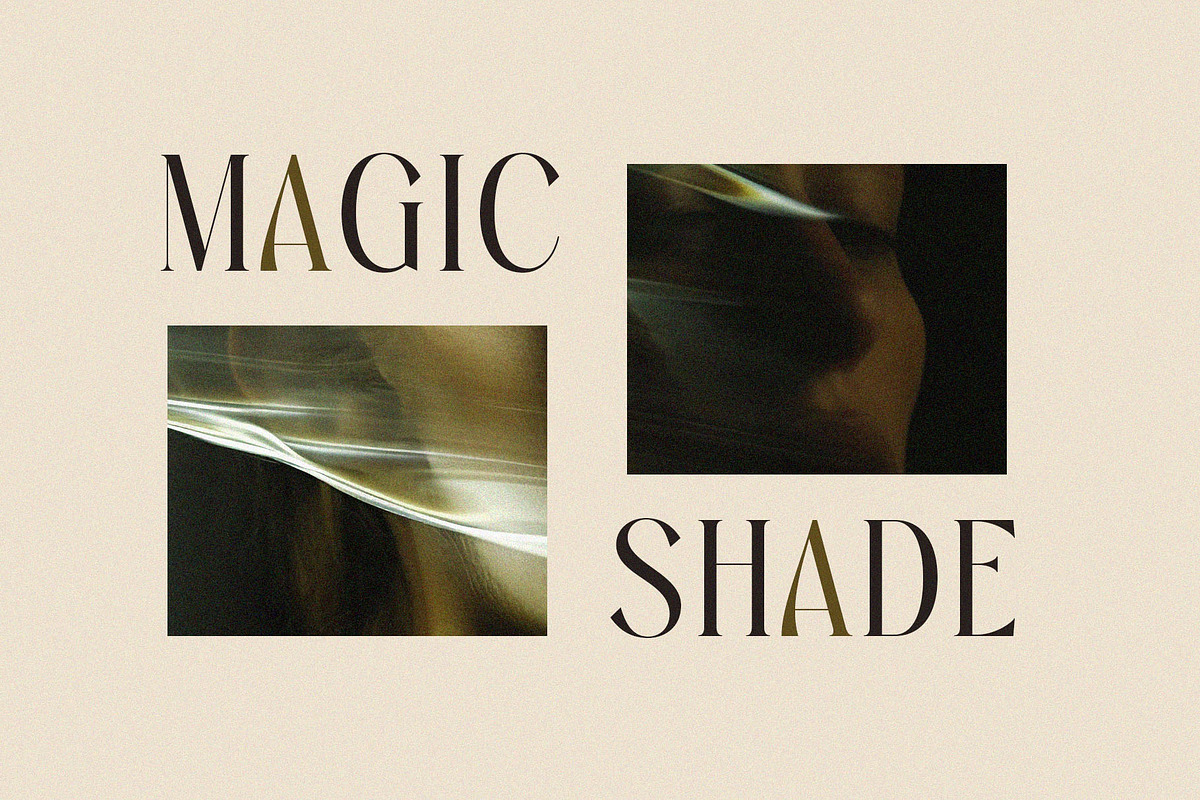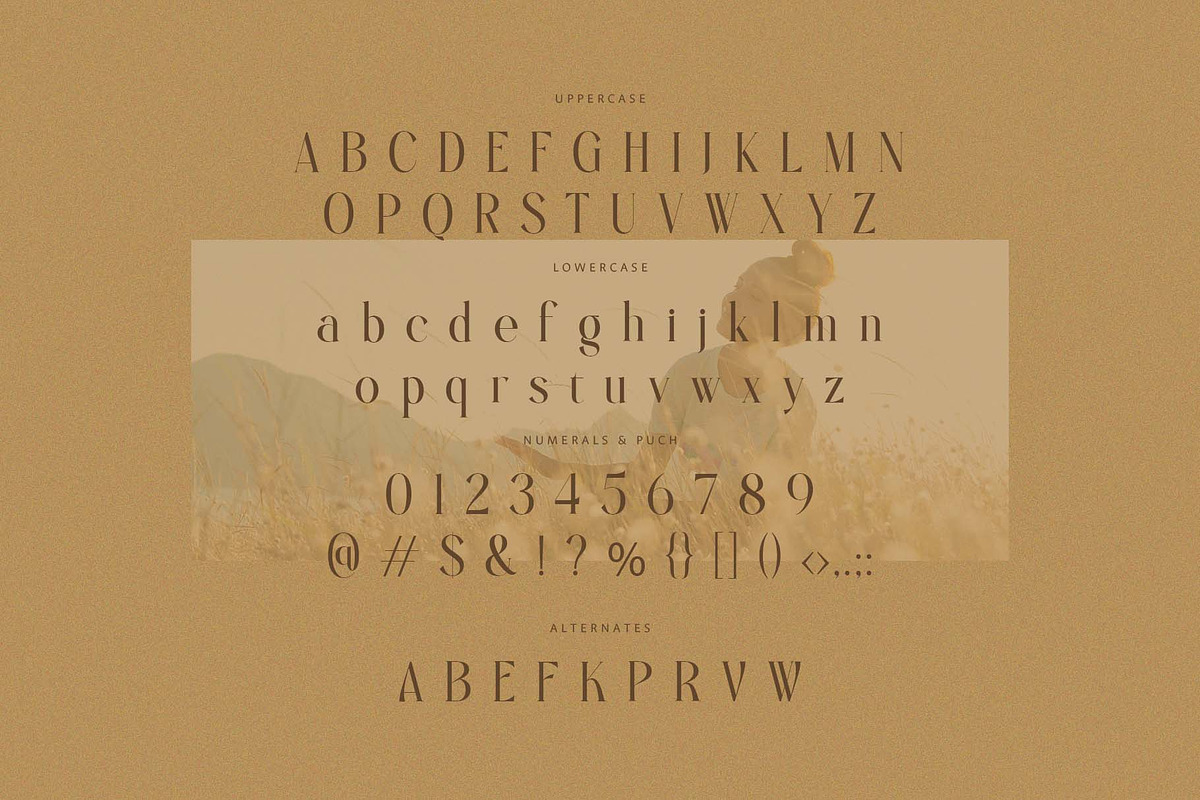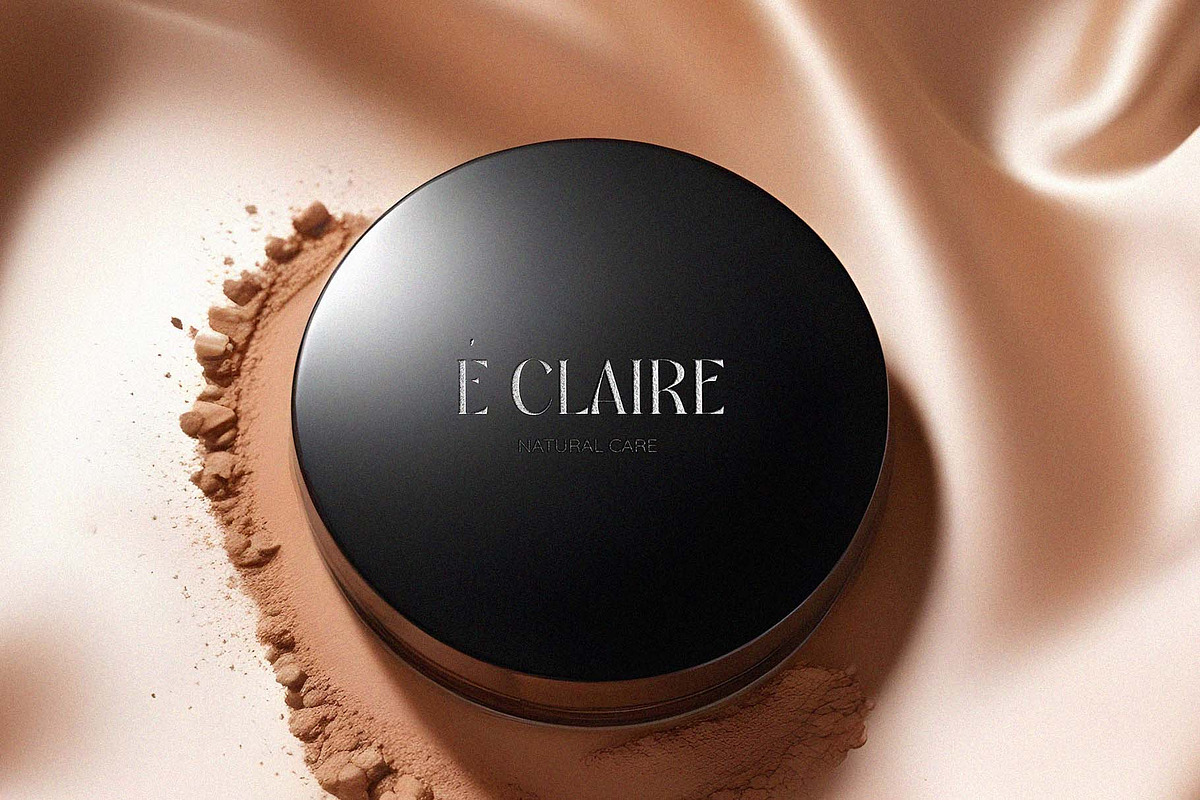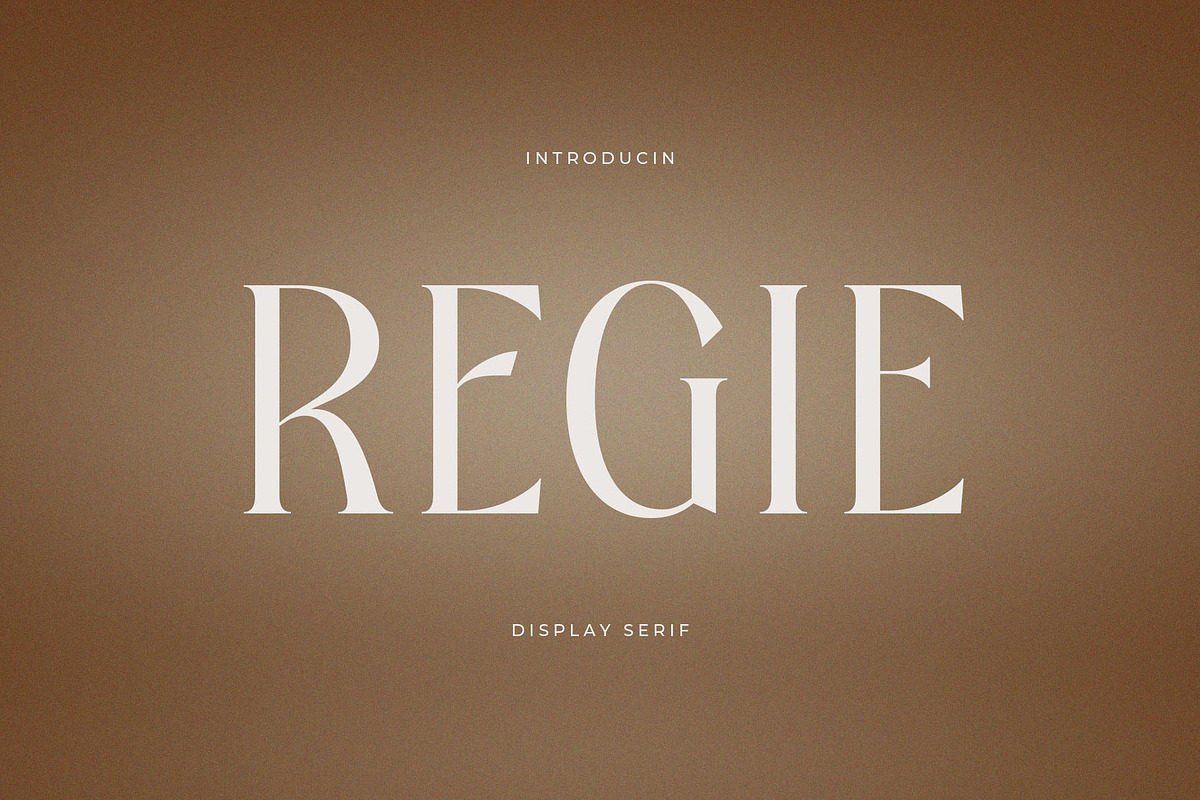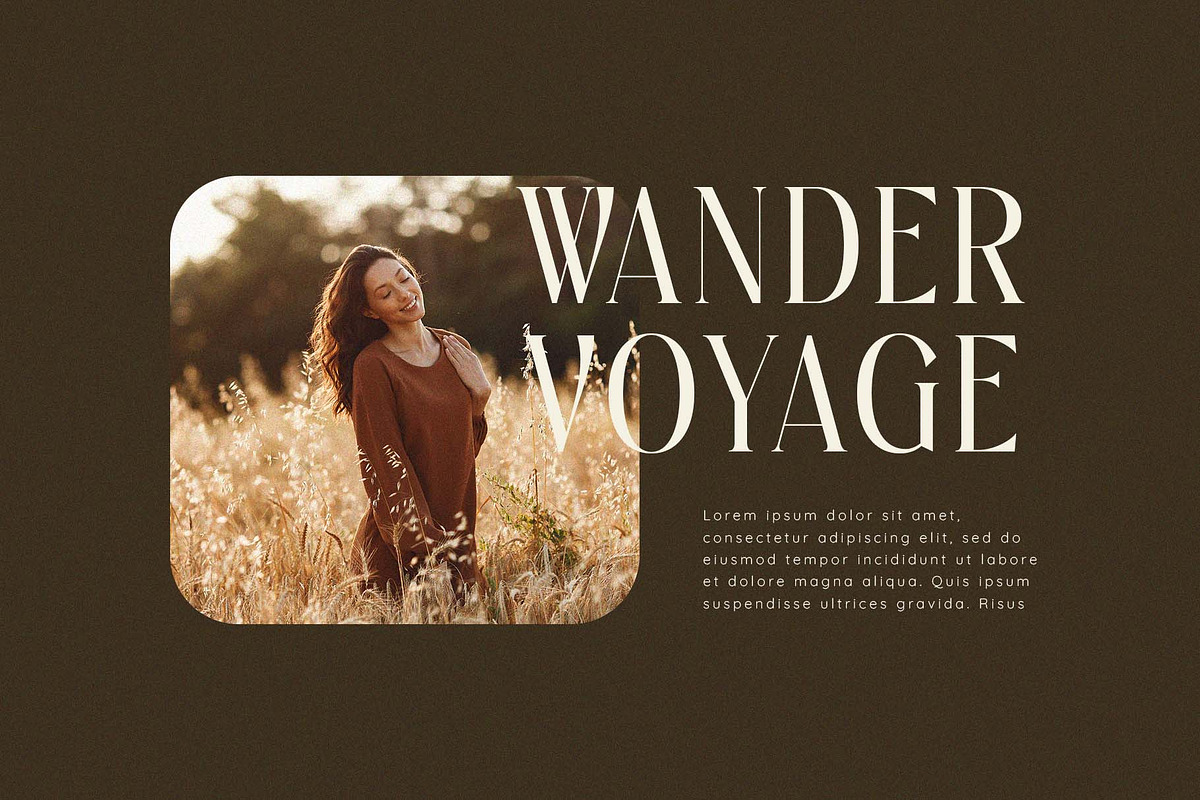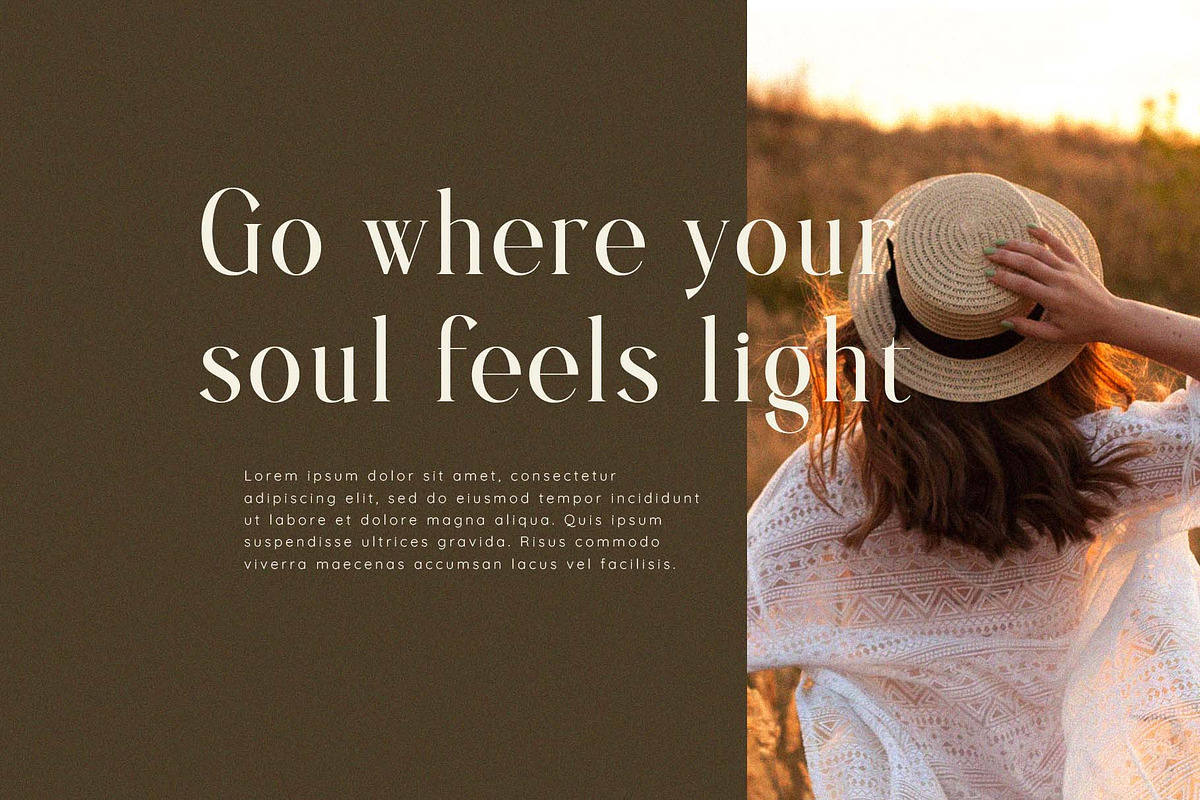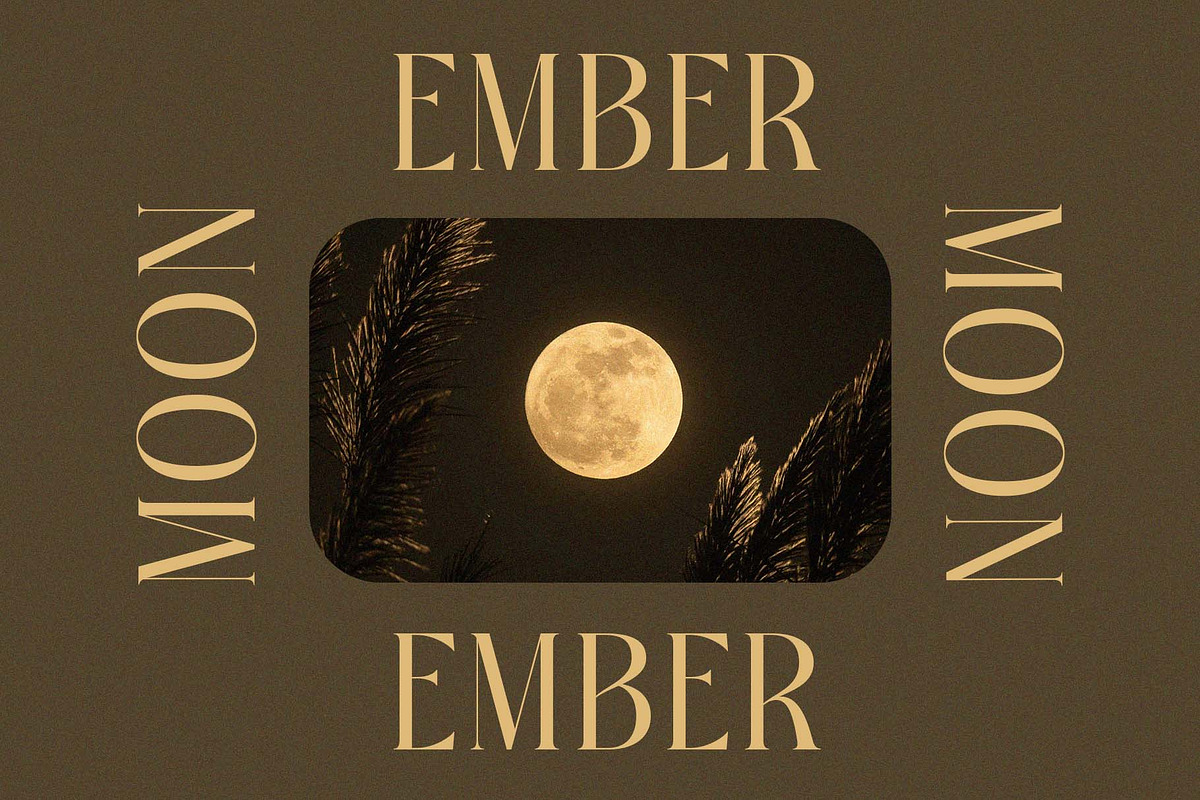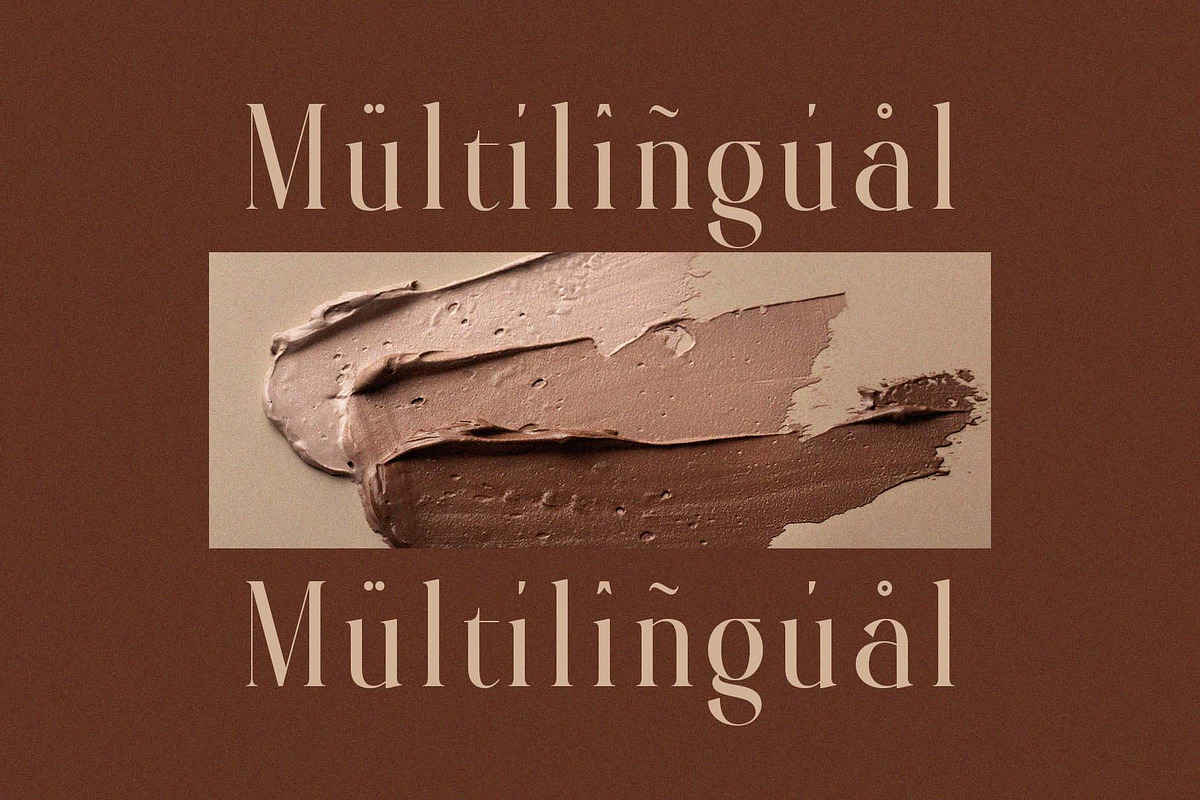
Regie - Elegant Display Serif Font
Introducing Regie Elegant Display Serif Font. Regie is a modern and classy typeface, best used as a display for headings, logos, branding, magazines, product packaging and invitations. Regie come with clean lines and smooth curves give any project an extra touch of class.